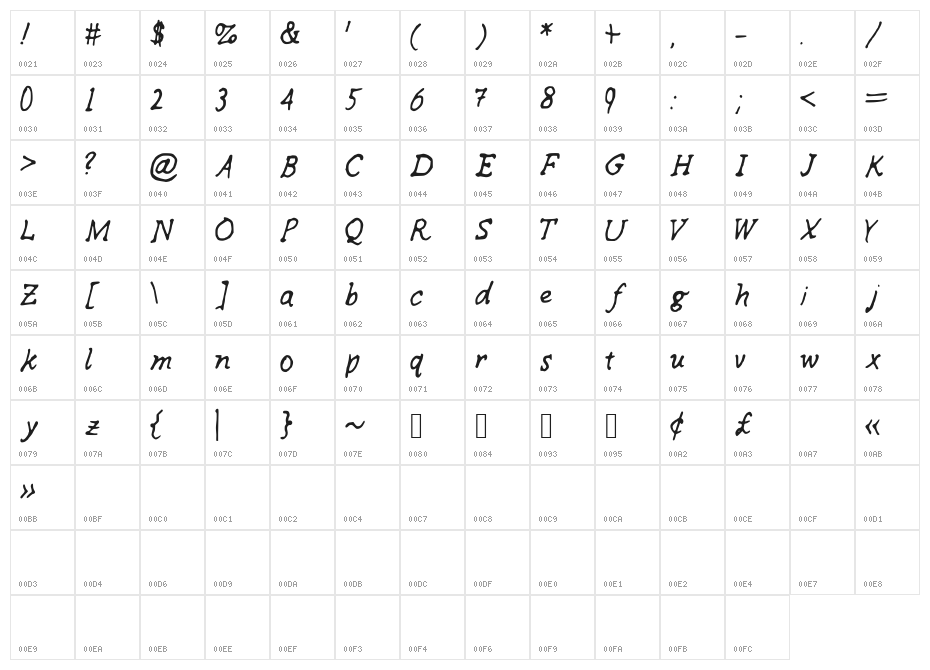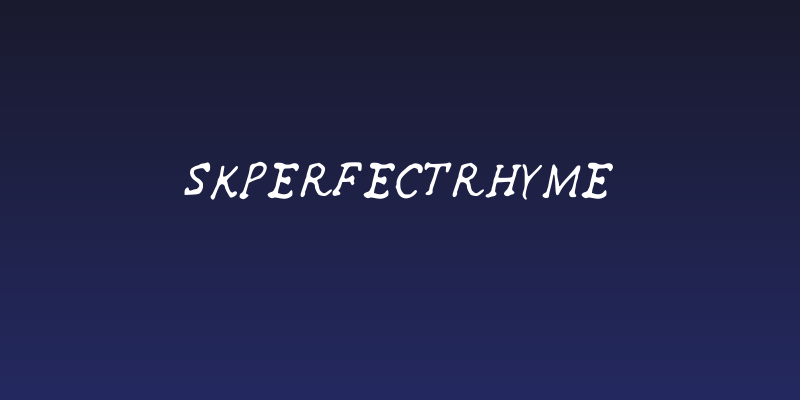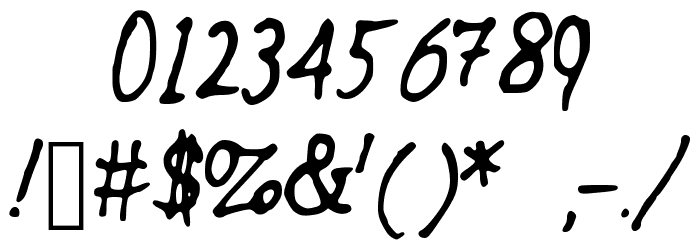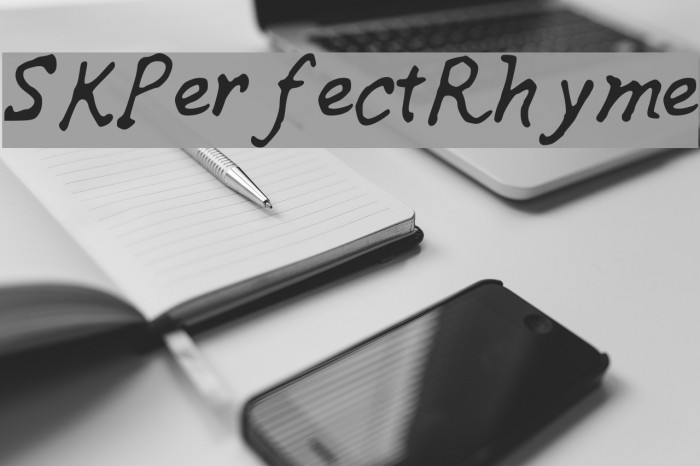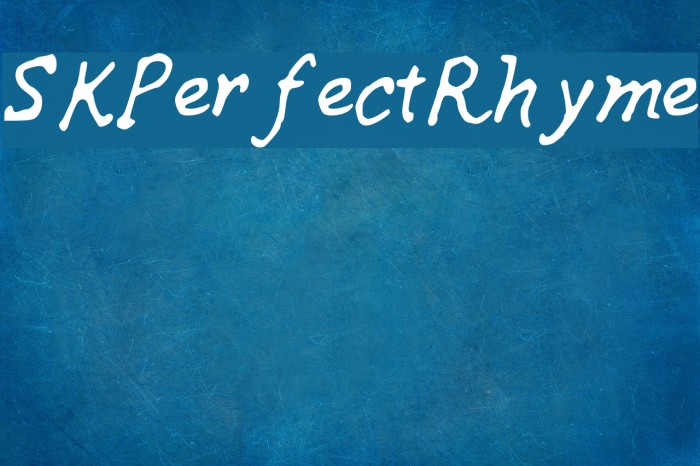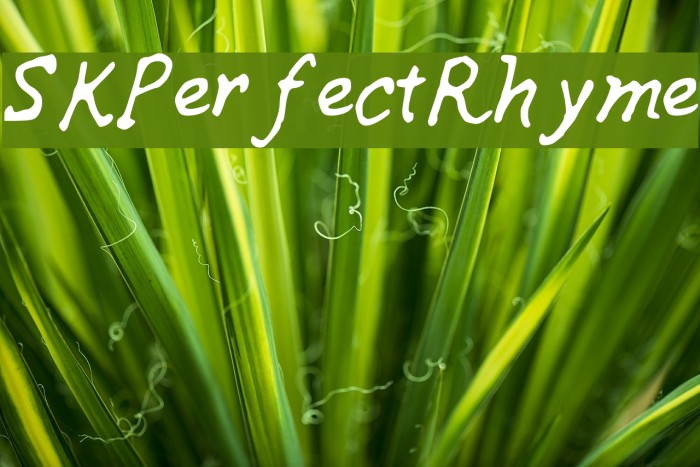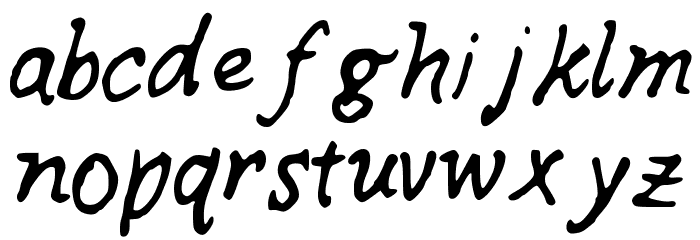
SKPerfectRhyme Font
SKPerfectRhyme Description
This font exhibits a playful and dynamic handwritten style, characterized by its fluid and slightly irregular strokes. The uppercase letters maintain a consistent height, while the lowercase letters display a charming variation in size and form, adding to the font's casual appeal. The numerals are bold and legible, matching the overall aesthetic. Special characters are creatively integrated, maintaining the font's unique personality. The strokes are moderately thick, providing a good balance between readability and style. This font is ideal for projects that require a personal touch or an informal vibe.
SKPERFECTRHYME UPPERCASE
SKPERFECTRHYME LOWERCASE
SKPERFECTRHYME OTHER CHARS